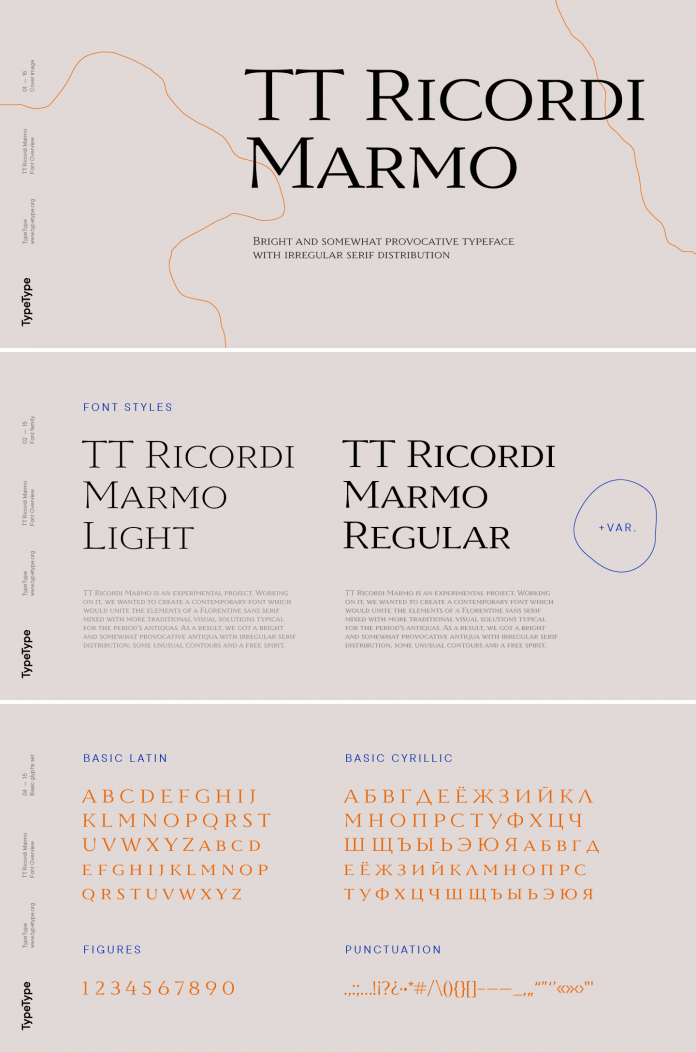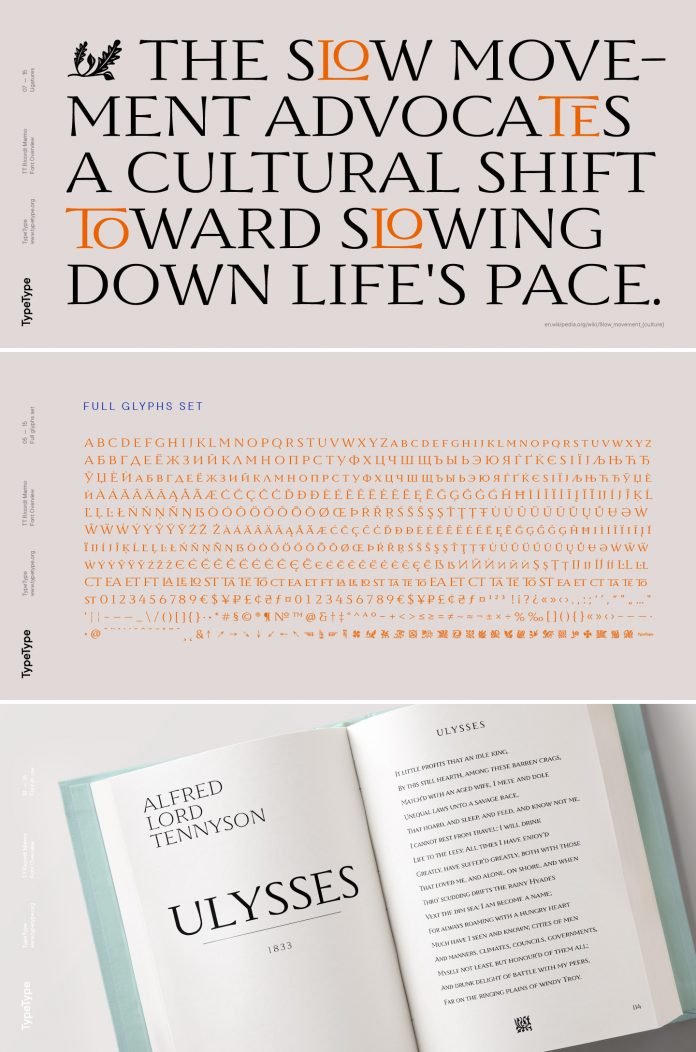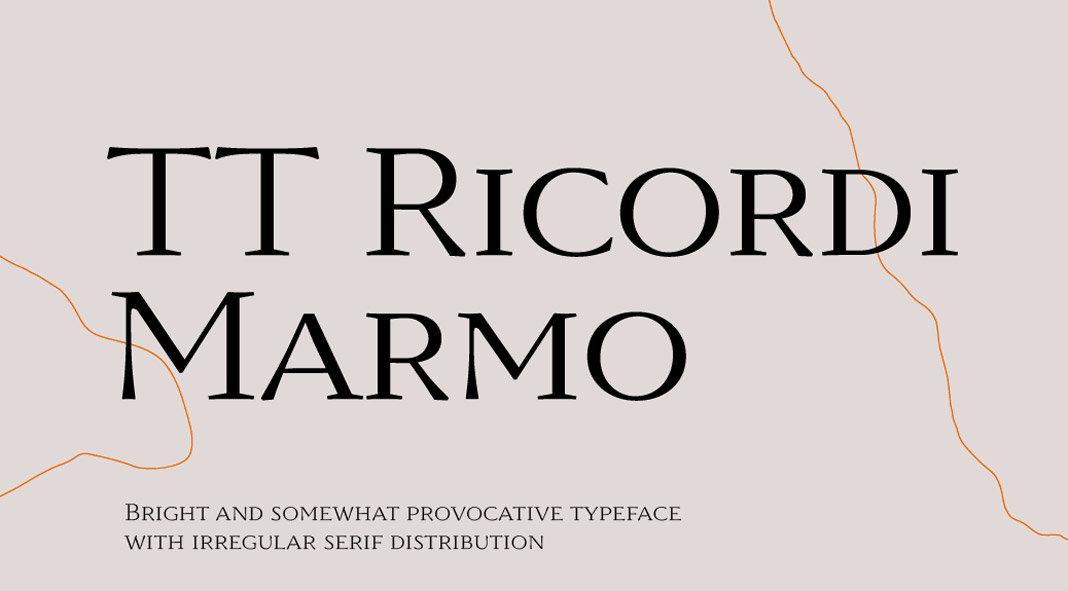
TT Ricordi Marmo, an elegant serif font by foundry TypeType.
TT Ricordi Marmo belongs to a range of experimental typography projects within the TT Ricordi font collection. Created and published by foundry TypeType, the goal of the TT Ricordi project is to bring back to life ancient typographic styles in the form of contemporary fonts.
Designed by Eugene Tantsurin, TT Ricordi Marmo draws inspiration from inscriptions at Basilica di Santa Croce in Florence. The result is a contemporary typeface that unites the elements of a Florentine sans-serif with more traditional visual solutions. TT Ricordi Marmo consists of two styles (light and regular) and one variable font. Each style contains over 630 glyphs and 18 OpenType features. Just click on the following link to learn more about this elegant display serif typeface.